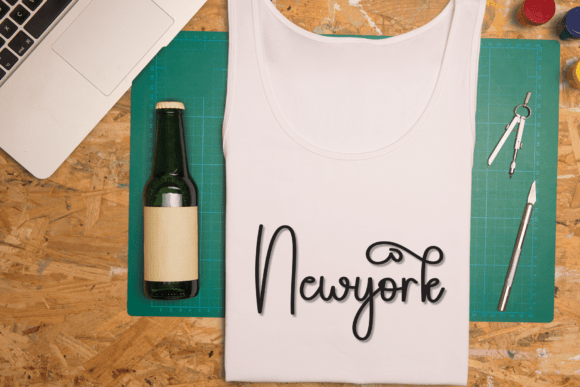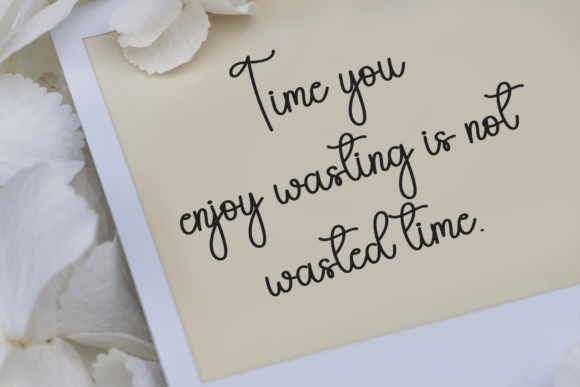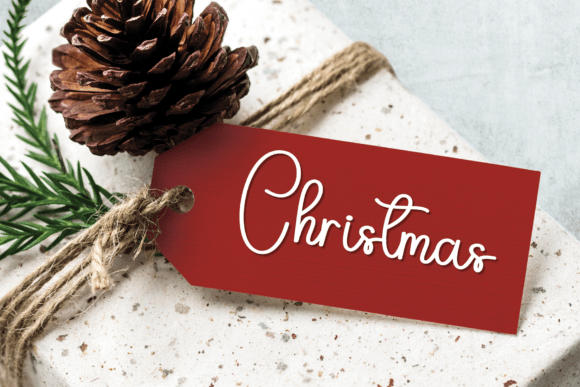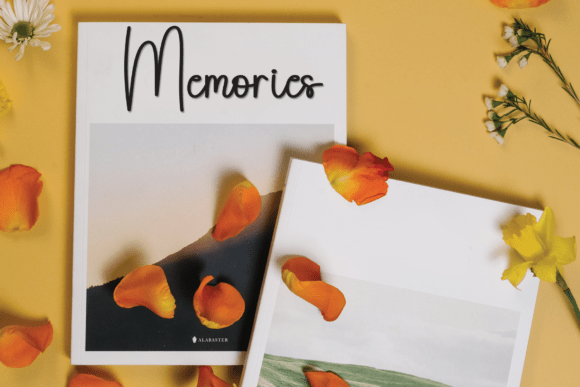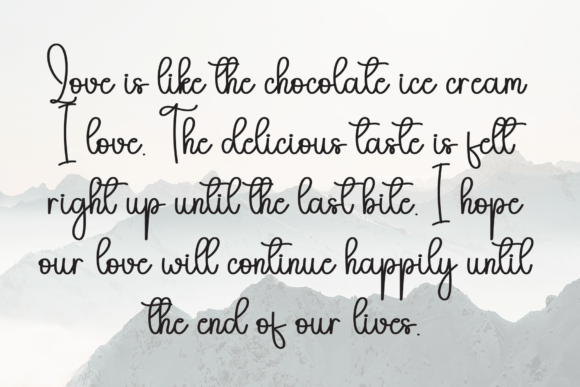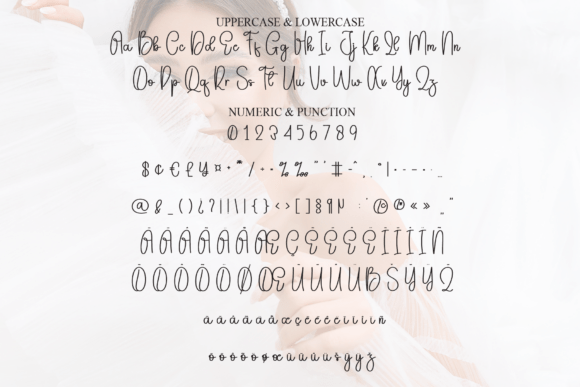
The Bride Font: Elevate Your Designs with Elegance and Sophistication
Have you ever been in the middle of a design project, and suddenly, you’re stuck on finding the perfect font? I recall a particularly frustrating experience while working on a wedding invitation design. My client wanted a font that exuded elegance, sophistication, and romance. After scouring the internet, I stumbled upon the Bride Font, and it instantly became the perfect fit. In this article, I’ll share my experience with this beautiful font, its features, and how you can make the most of it in your designs.
A Personal Experience with Bride Font
When I first used the Bride Font, I was blown away by its versatility and charm. The font’s elegant style was perfect for my client’s wedding invitation, and it added a touch of sophistication to the overall design. I was able to use it for various design elements, from the invitation’s main text to the decorative accents. The font’s flexibility and range of features made it an excellent choice for my project.
An Honest Review of Bride Font
Here’s what I love about the Bride Font:
• ✨ Elegant and sophisticated design, perfect for wedding-related projects, luxury brands, and high-end products
• ✅ Highly versatile, suitable for various design applications, including wall displays, social media posts, logos, and more
Some minor quirks to consider:
• ⚠️ Limited availability of certain special characters, which may require additional design workarounds
• 🤔 Occasional inconsistencies in kerning, which may need manual adjustments for optimal results
4. Experiment with the font’s OpenType features, such as ligatures and stylistic alternates, to add visual interest to your design.
The Story Behind Bride Font
The Bride Font was designed with love and care by a team of skilled typographers who aimed to create a beautiful, elegant font for special occasions. Inspired by classic calligraphy and modern design trends, the Bride Font is the perfect blend of sophistication and romance. Whether you’re designing wedding invitations, social media posts, or product packaging, this font is sure to impress.